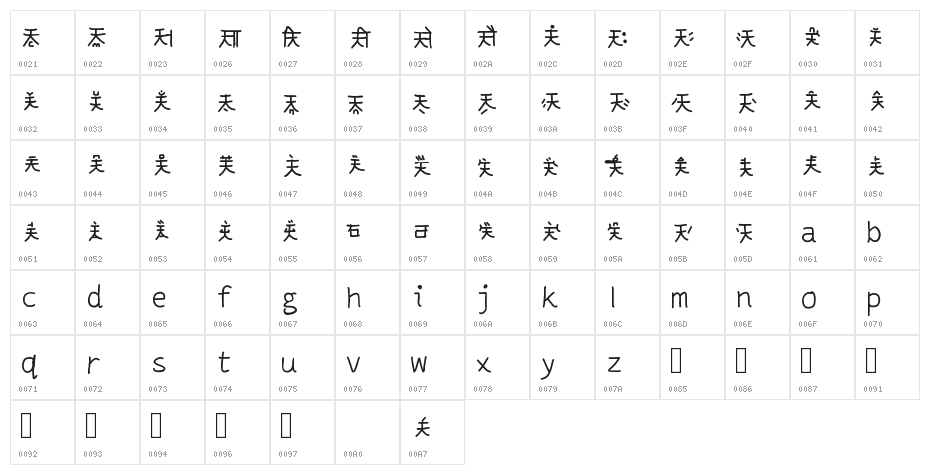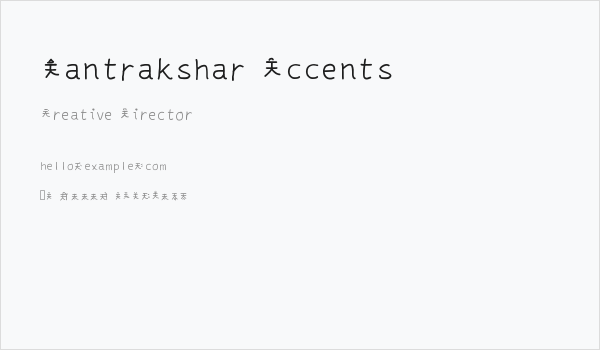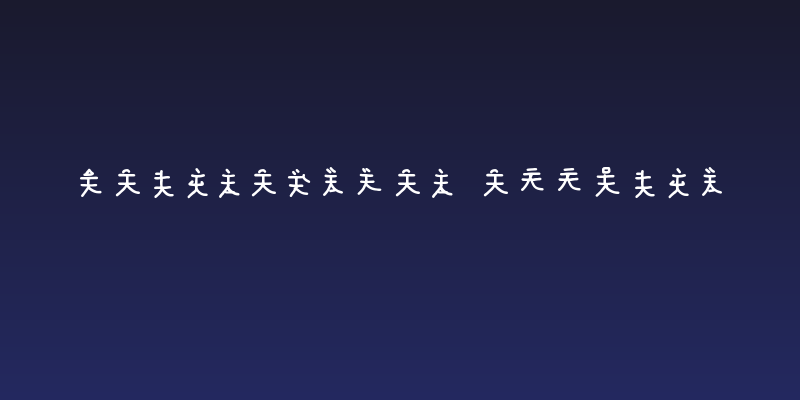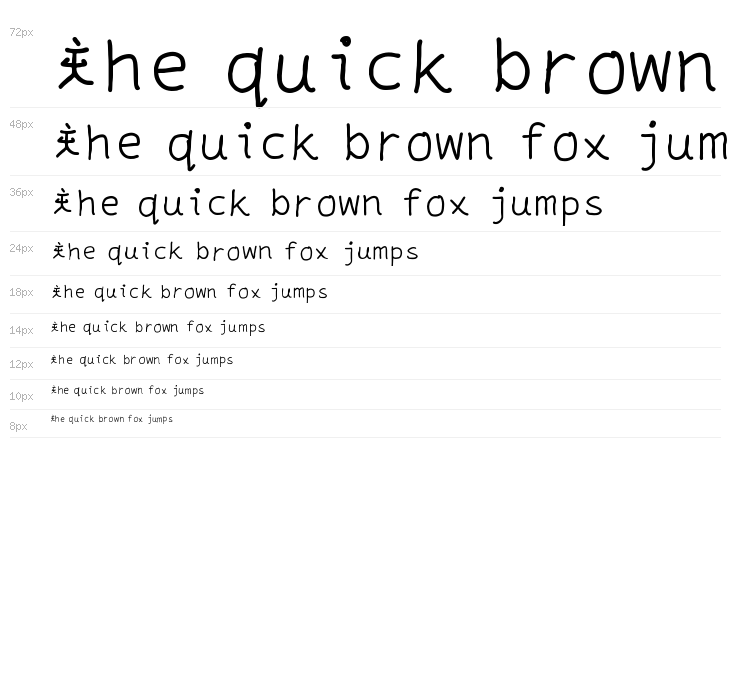
Mantrakshar Accents Font
Mantrakshar Accents Description
This font features a playful and informal style with rounded edges and a handwritten appearance. The characters are slightly irregular, giving it a casual and friendly look. The lowercase letters are particularly rounded, while the uppercase letters maintain a consistent height. The font has a medium weight, making it suitable for various design purposes. The character spacing is normal, allowing for easy readability. This font is versatile and can be used in a variety of projects that require a personal touch.
| Use Case | Headlines, Informal text, Branding |
| Proposed Projects | Ideal for greeting cards, children's books, casual branding, and social media graphics. |